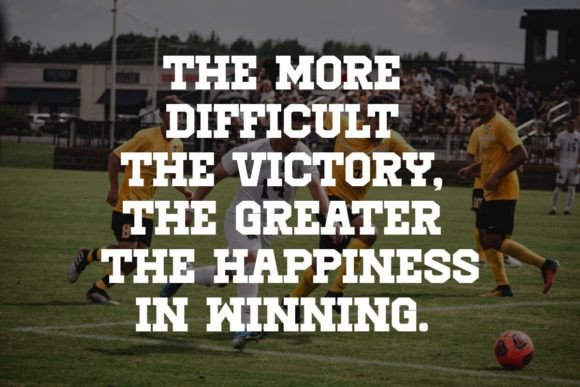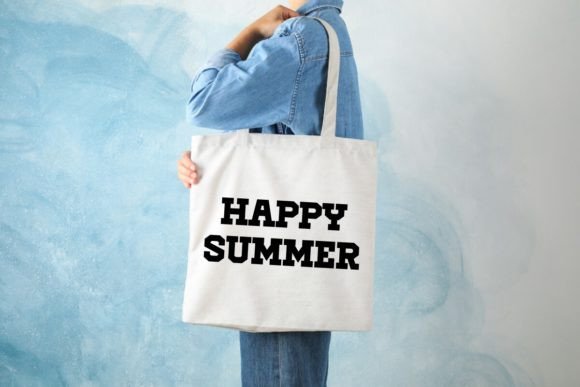
Retro Soccer Font
Retro Soccer is a modern and unique condensed slab serif font. This font brings a bold and energetic vibe with a modern vintage touch to your creative works. Perfect for quotes, backgrounds, sports apparel, t-shirts, mugs, pillows and tote bags.